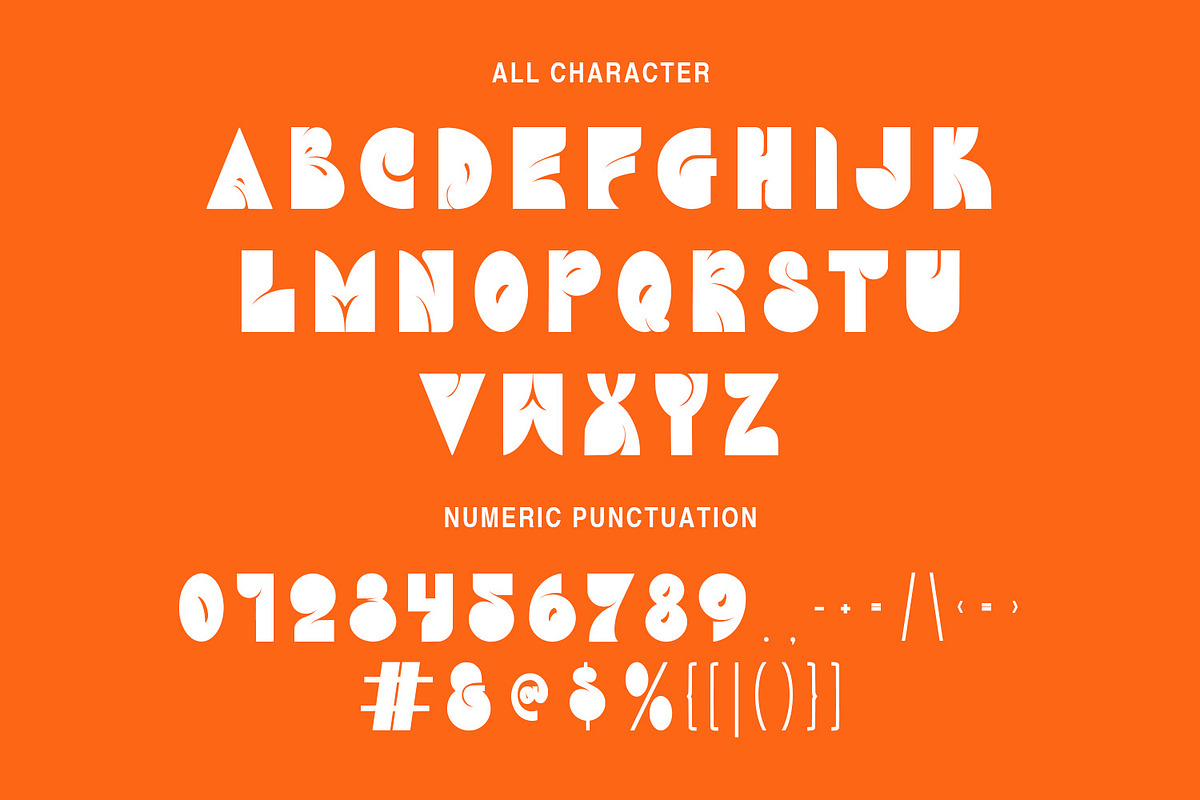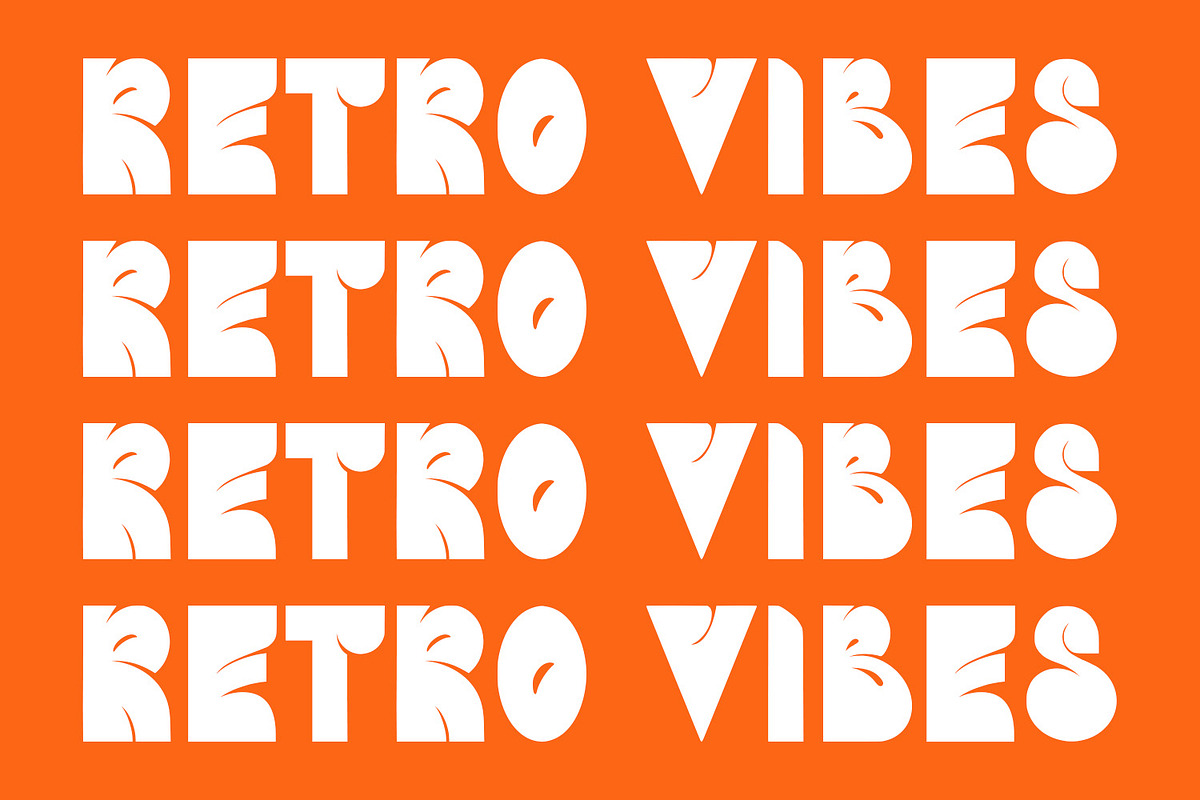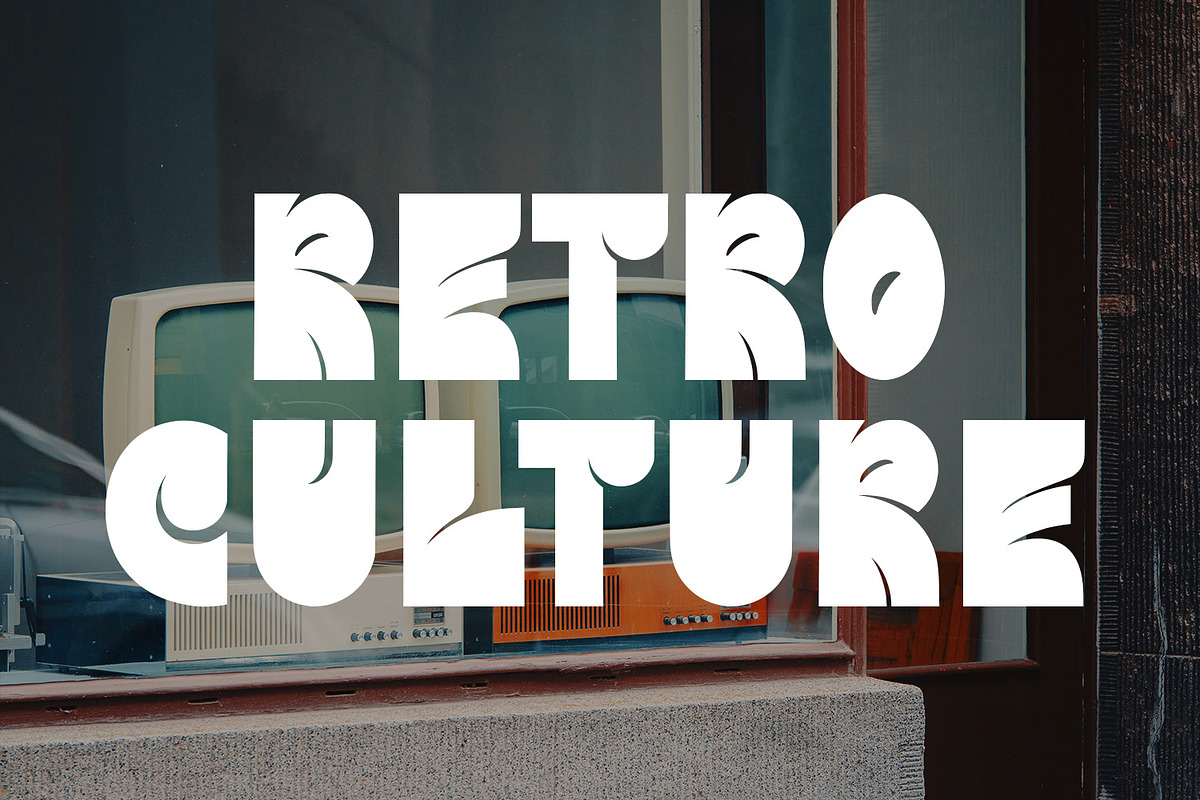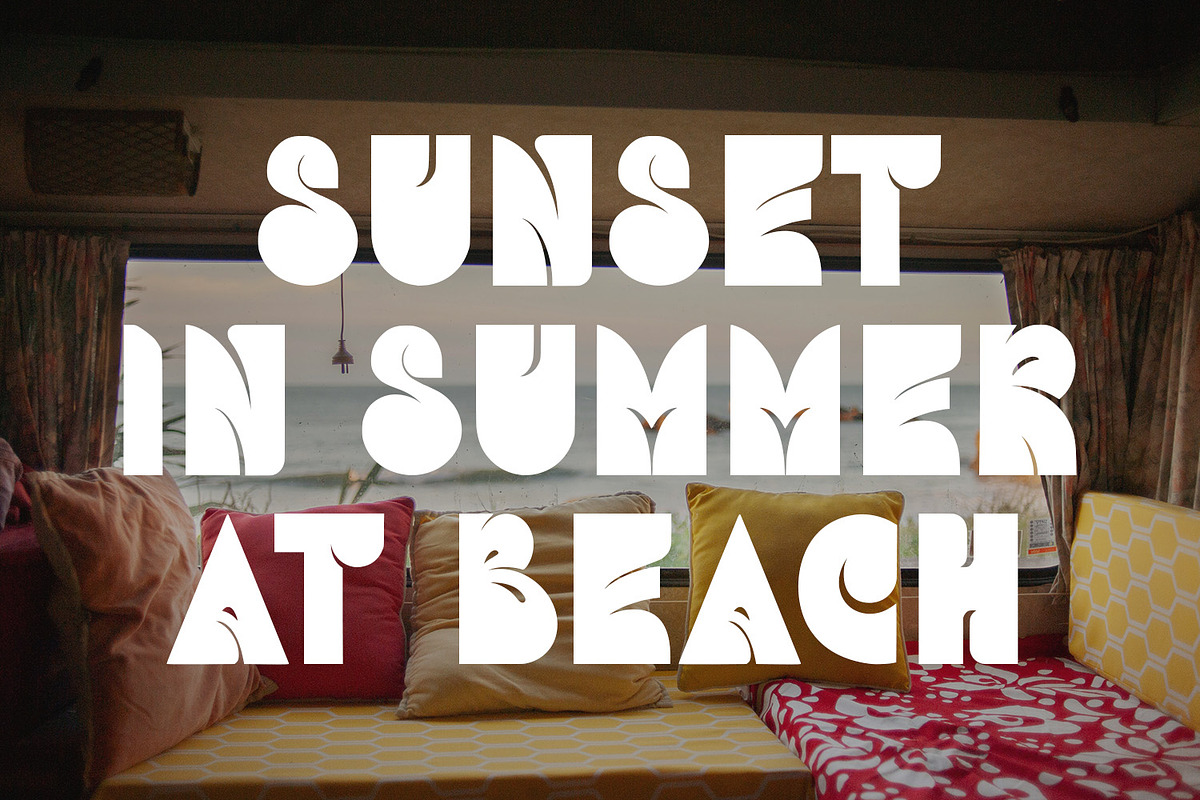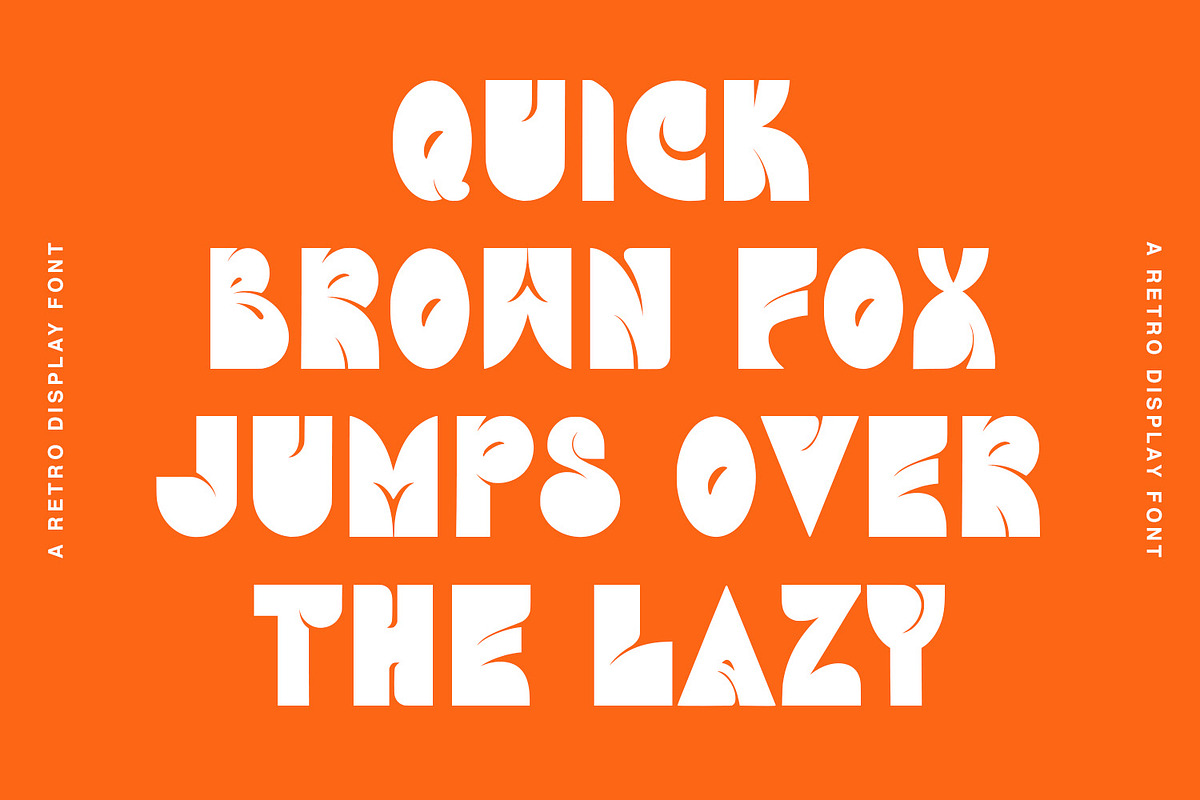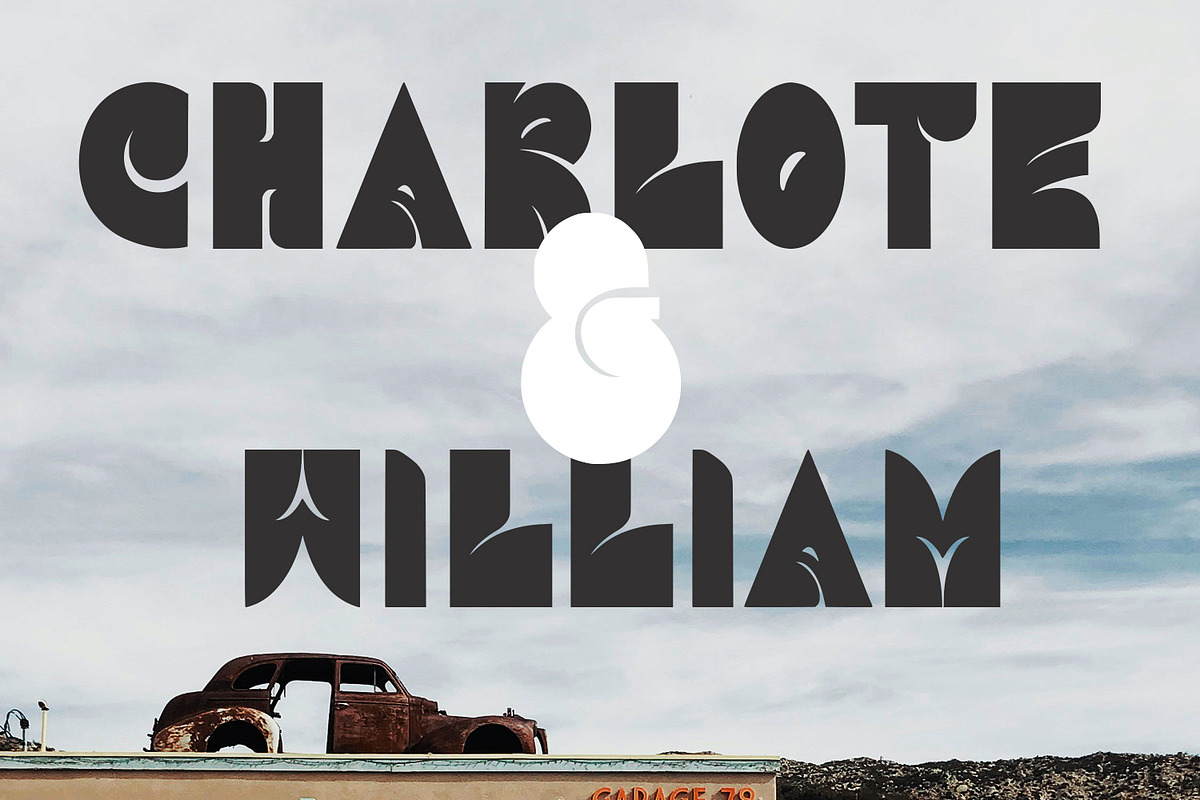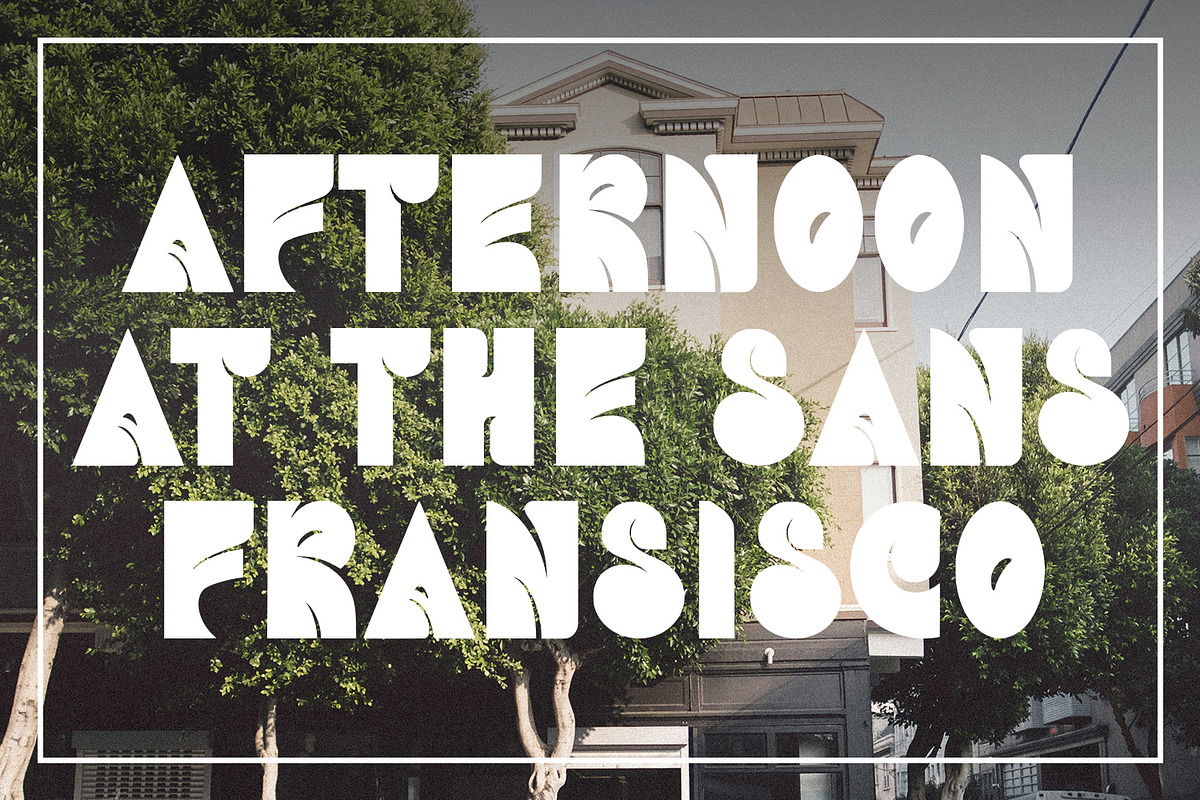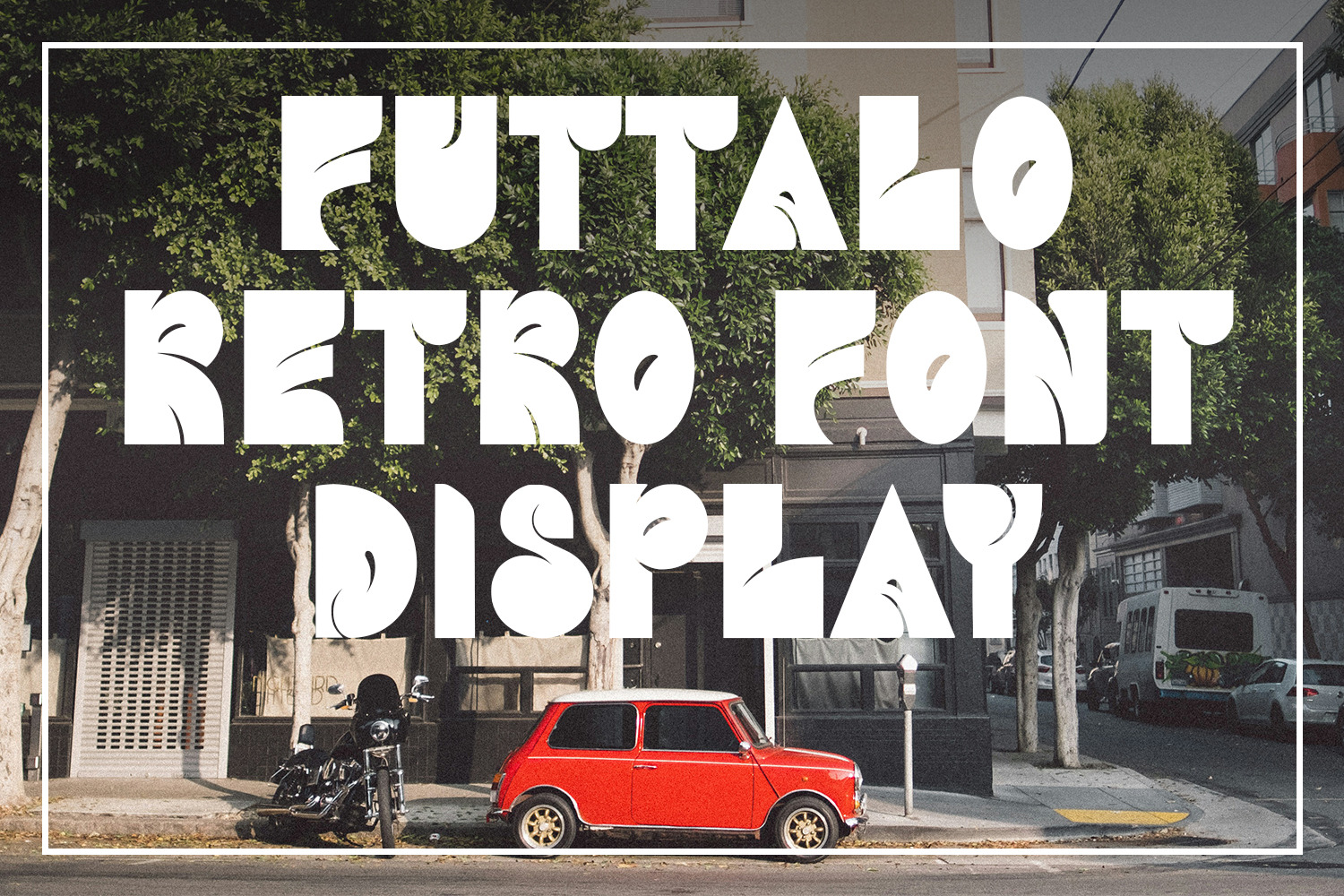
Futtalo Retro Display Font
Futtalo is a retro sans display font. With bold stroke and fun character. To give you an extra creative work. Futtalo font support multilingual more than 100+ language. This font is good for logo design, Social media, Movie Titles, Books Titles, a short text even a long text letter and good for your secondary text font with sans or serif. Make a stunning work with Futtalo font.